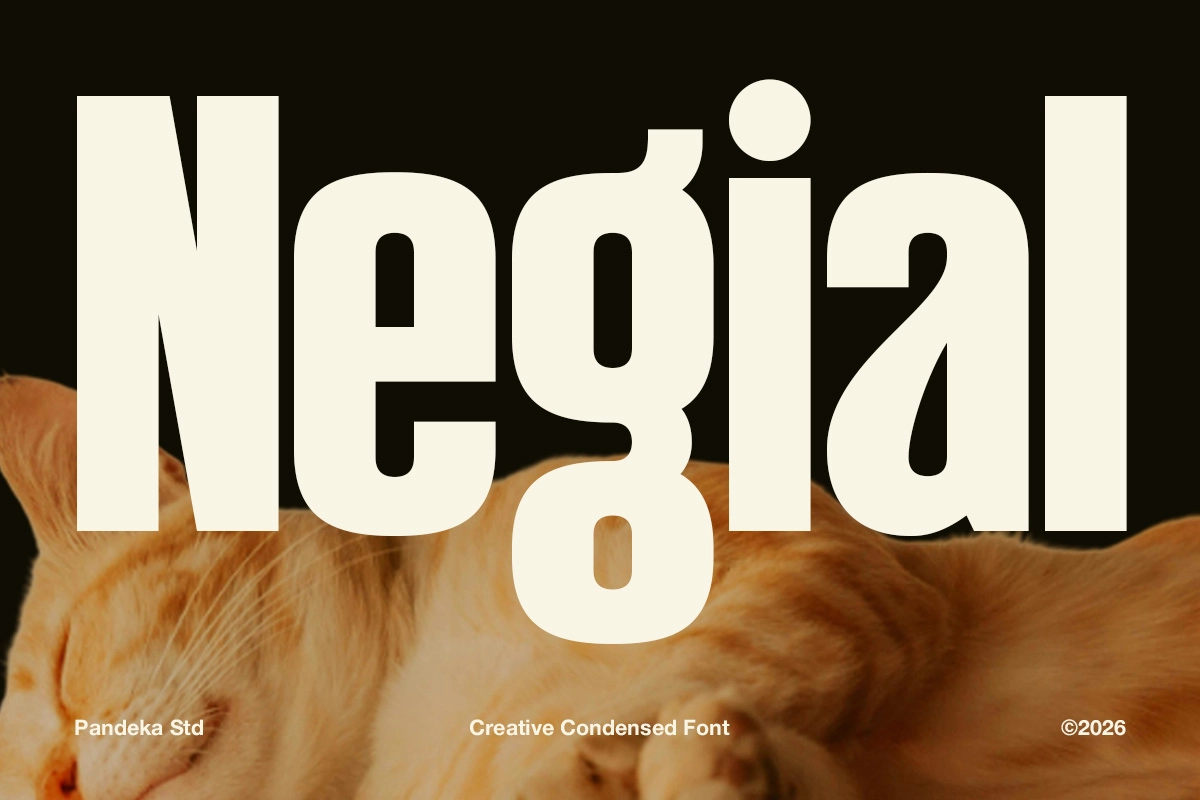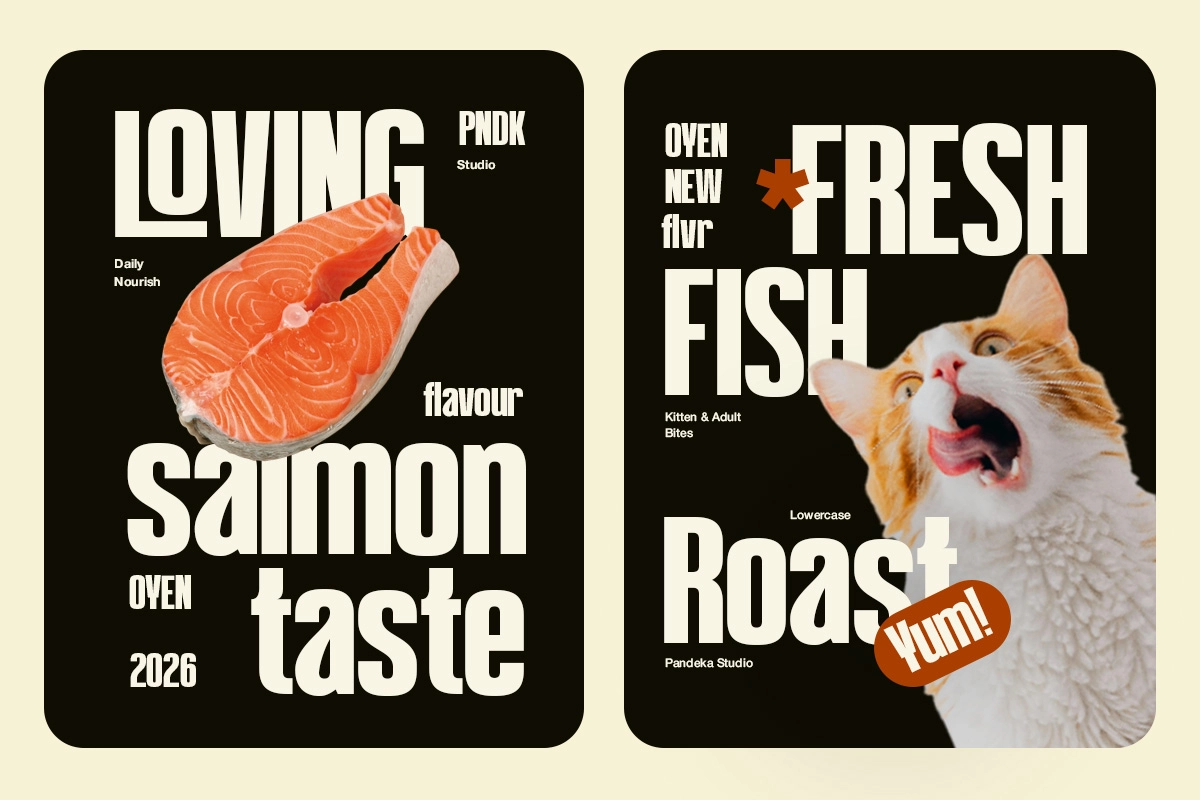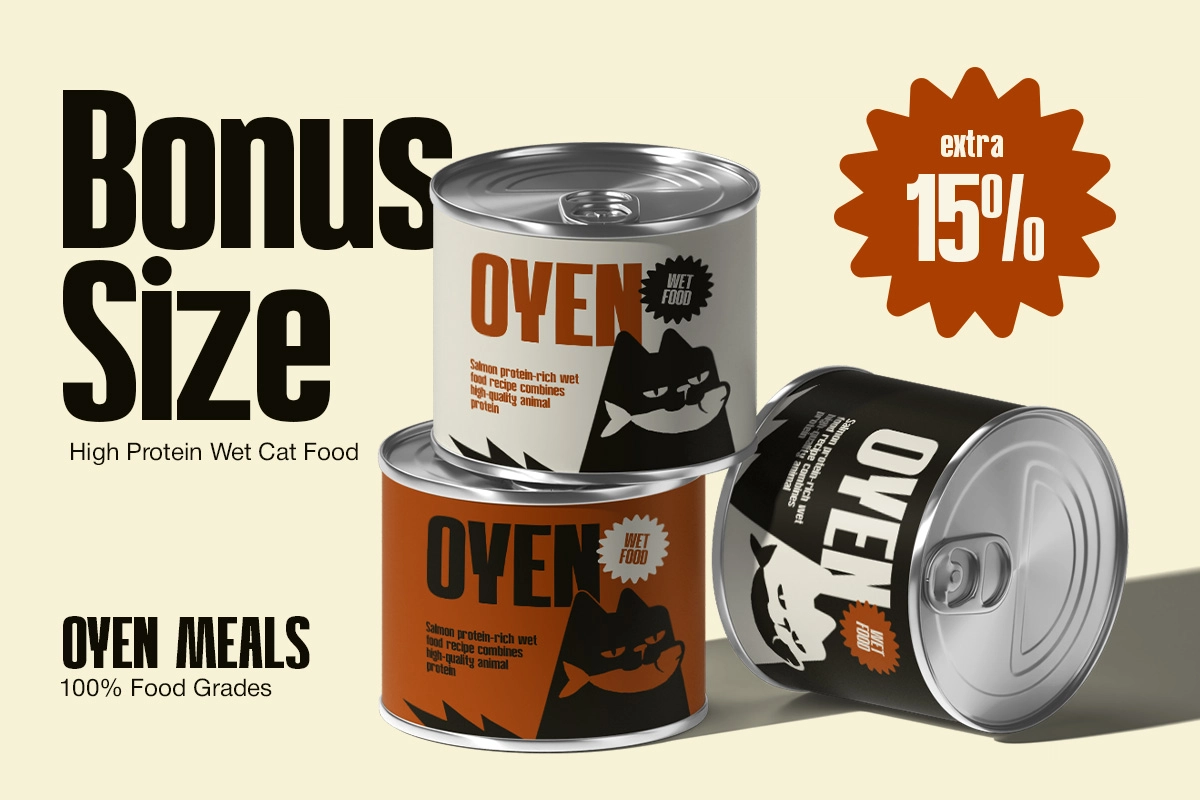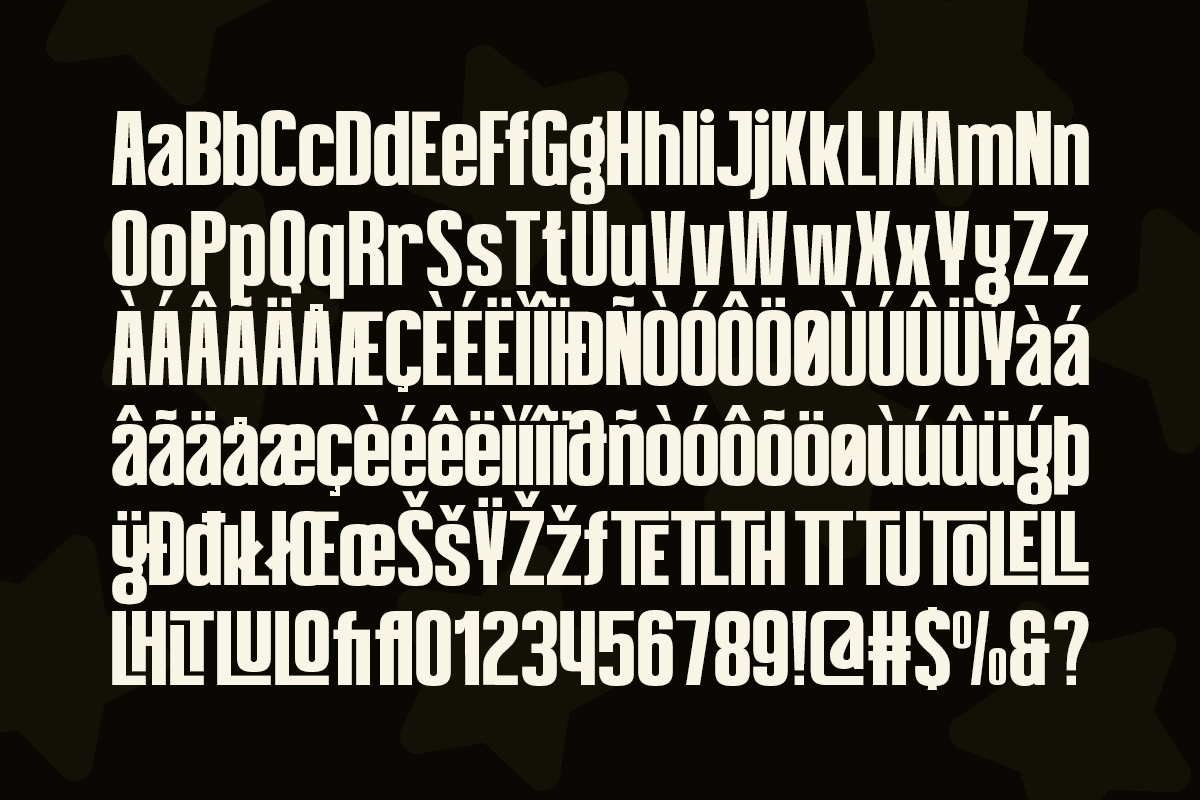
Negial - Condensed Display Font
Negial stacks tall, narrow letterforms with heavy weight and square-cut terminals, built as a tall condensed display font that packs maximum size into minimal width. The bowls stay tight and the counters small, so even at a squeezed column width the letters keep a blocky, poster-grade presence.
Set as a headline, Negial holds its density at both large and compressed sizes, which makes it useful for packaging copy that has to shout from a shelf. Use it for food and pet food packaging, product labels, snack bags, event posters, promotional flyers, bold logotypes, magazine headlines, merchandise prints, and more.
• uppercase & lowercase;
• numerals, punctuation & symbols;
• 10+ stylistic ligatures;
• multilingual support;